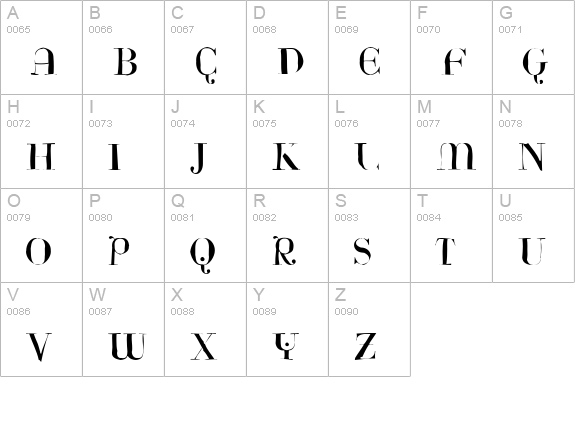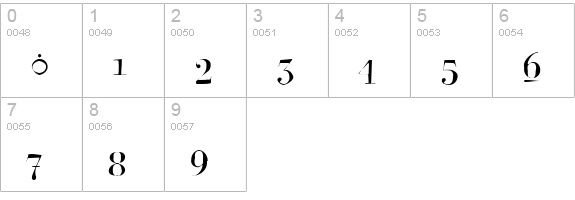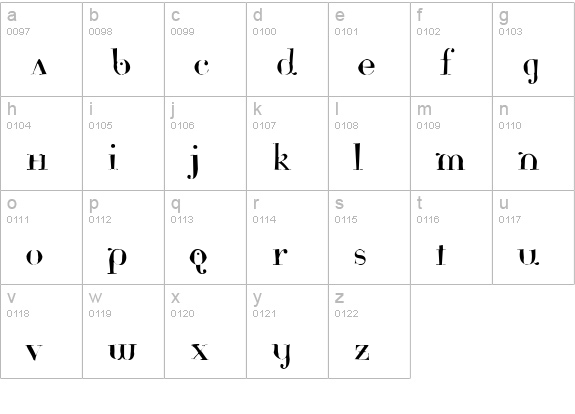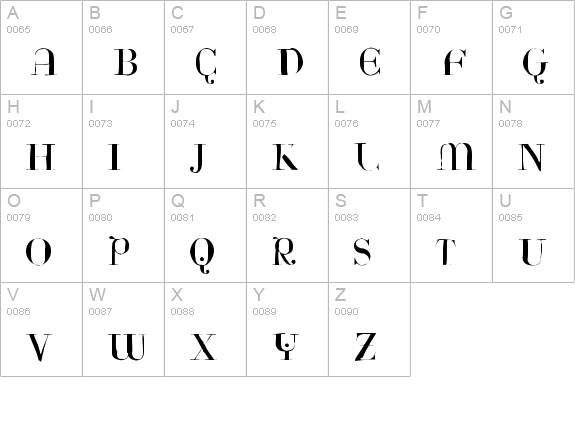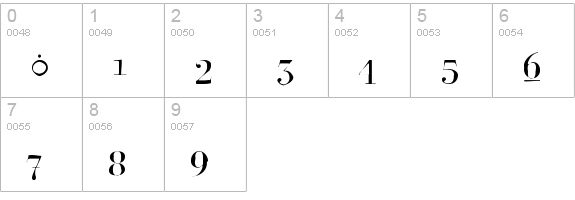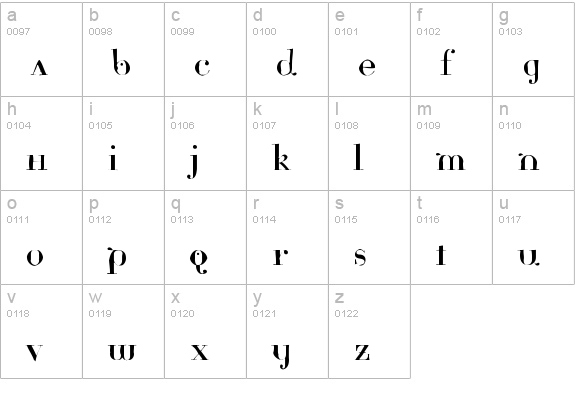
Rina Gaunt Font Details
Rina Gaunt is a beautifully crafted font that exudes elegance and sophistication. With its delicate curves and stylish appearance, this font is perfect for adding a touch of class to your design projects. Whether you're creating wedding invitations, branding materials, or social media graphics, Rina Gaunt will elevate your work to new heights. What's even better is that Rina Gaunt is available for free download at FontsMarket.com. Yes, you read that right - this stunning font can be yours at no cost! So why wait? Enhance your designs with the timeless charm of Rina Gaunt today and watch your projects come to life in a whole new way.